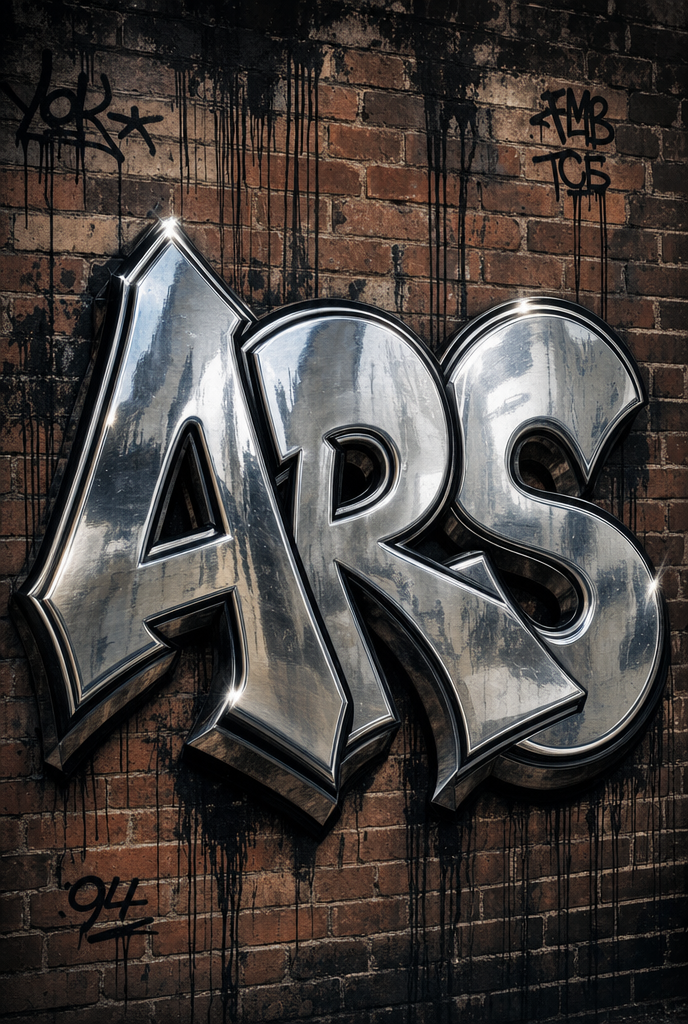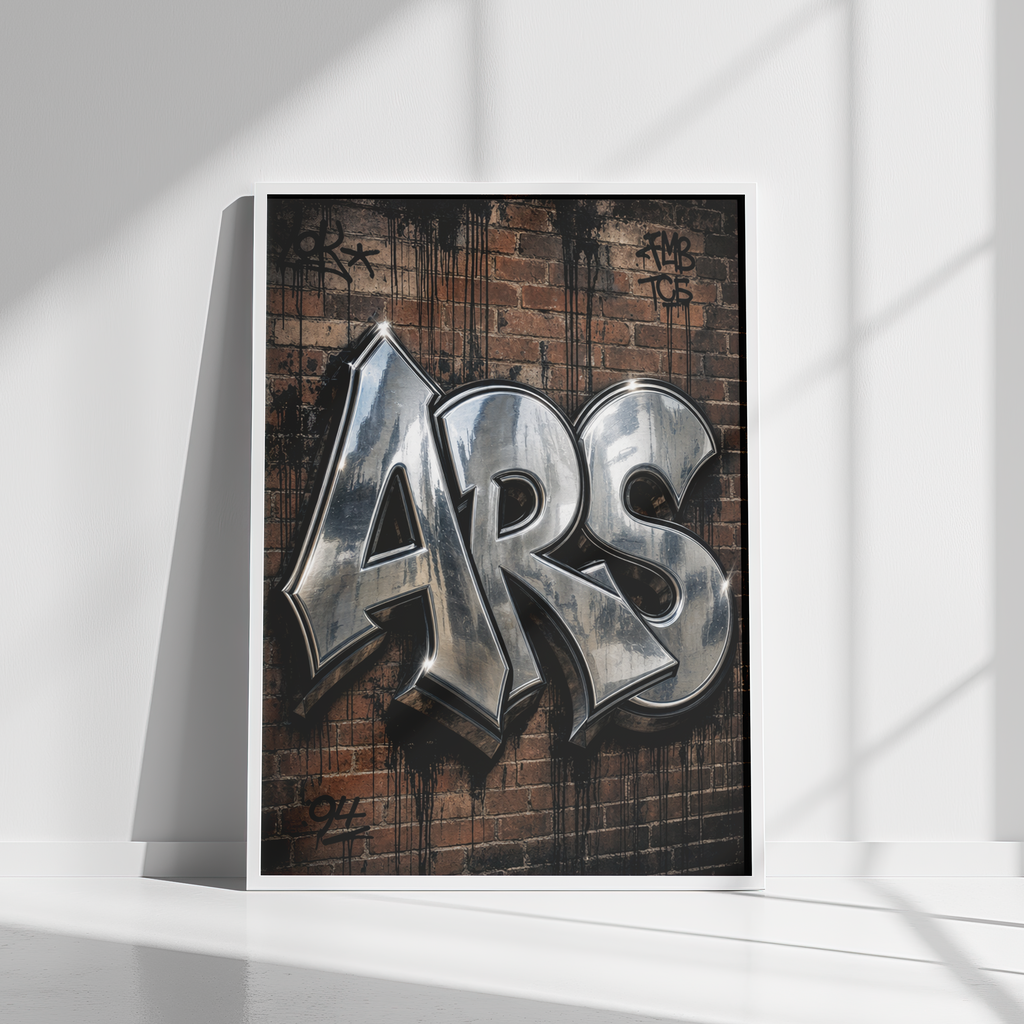
ARS
Premium 61 x 91 cm poster featuring bold, chrome-style "ARS" graffiti set against an urban brick wall. High-contrast metallic reflections and realistic depth give this piece a striking, industrial look—perfect for studios, lofts, or modern living spaces.